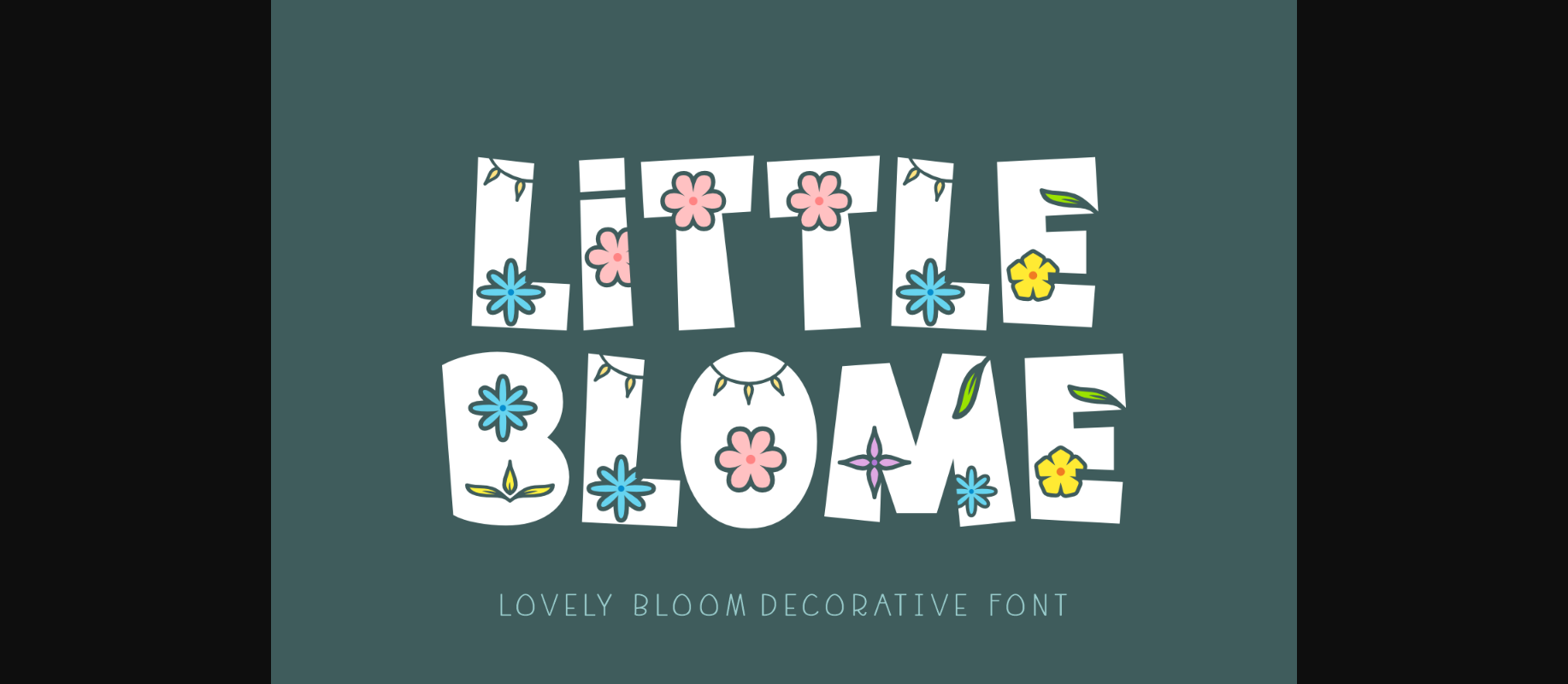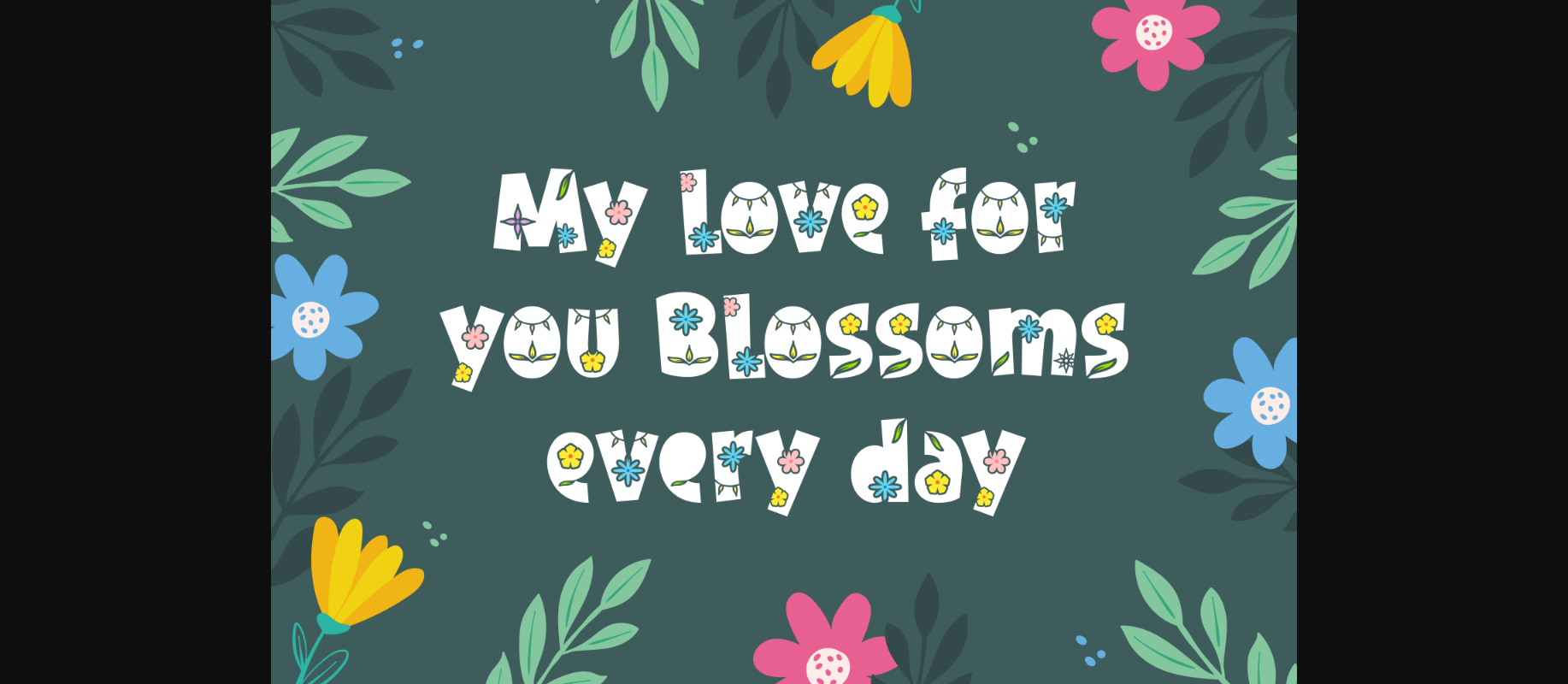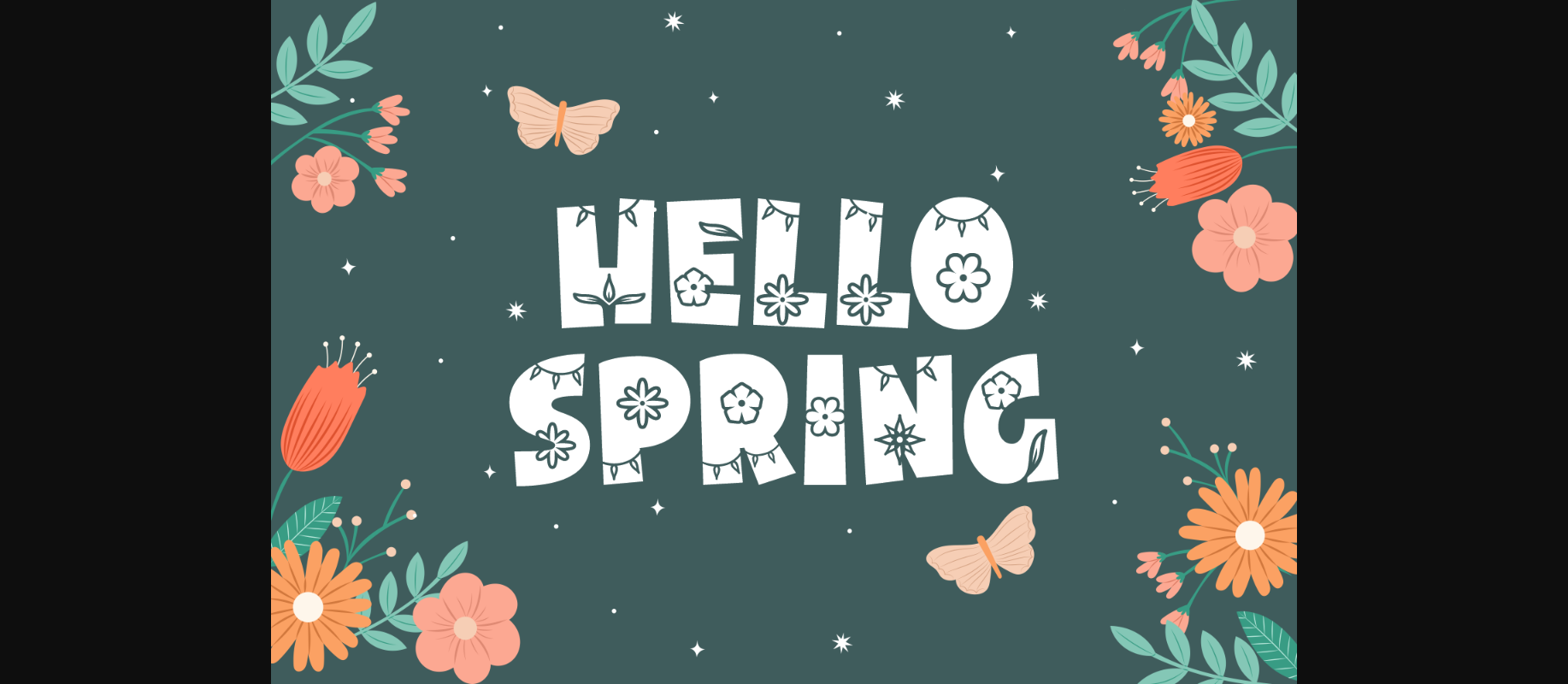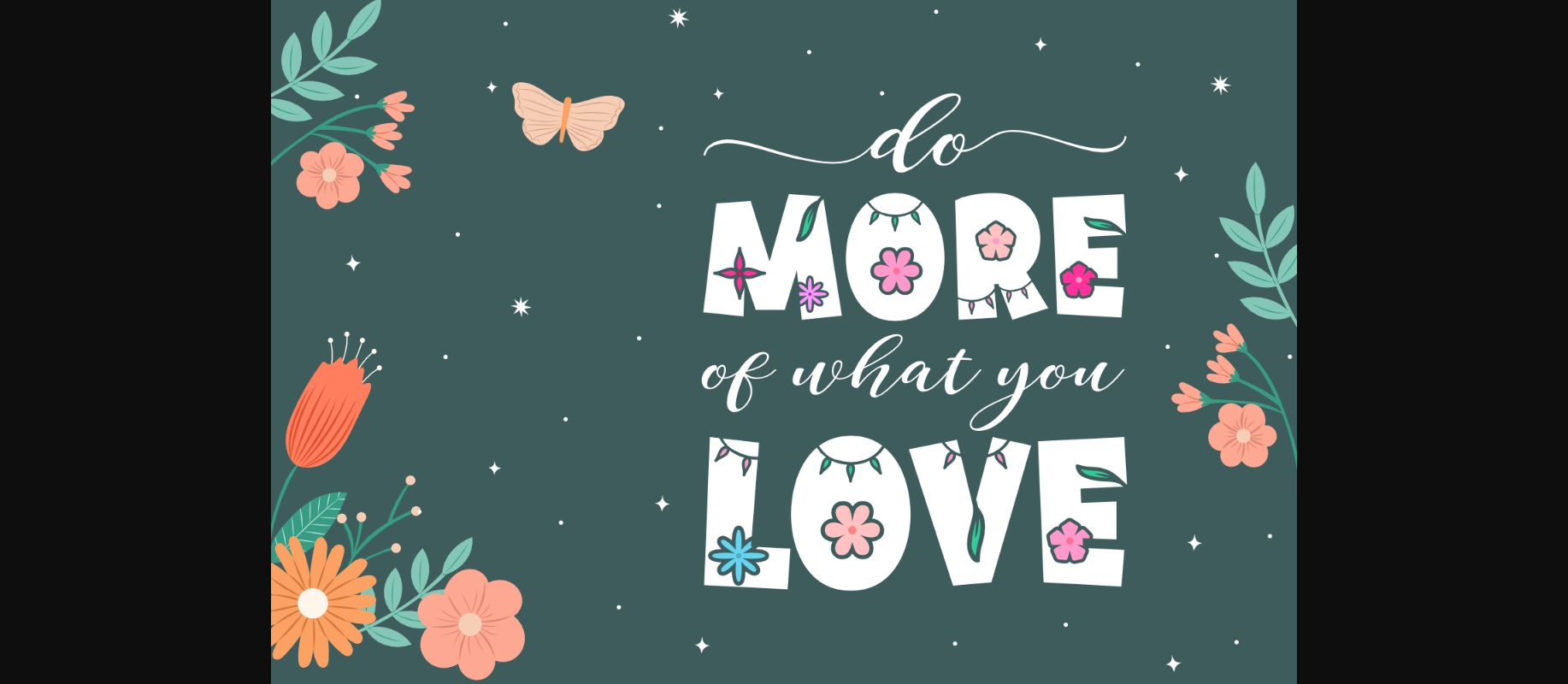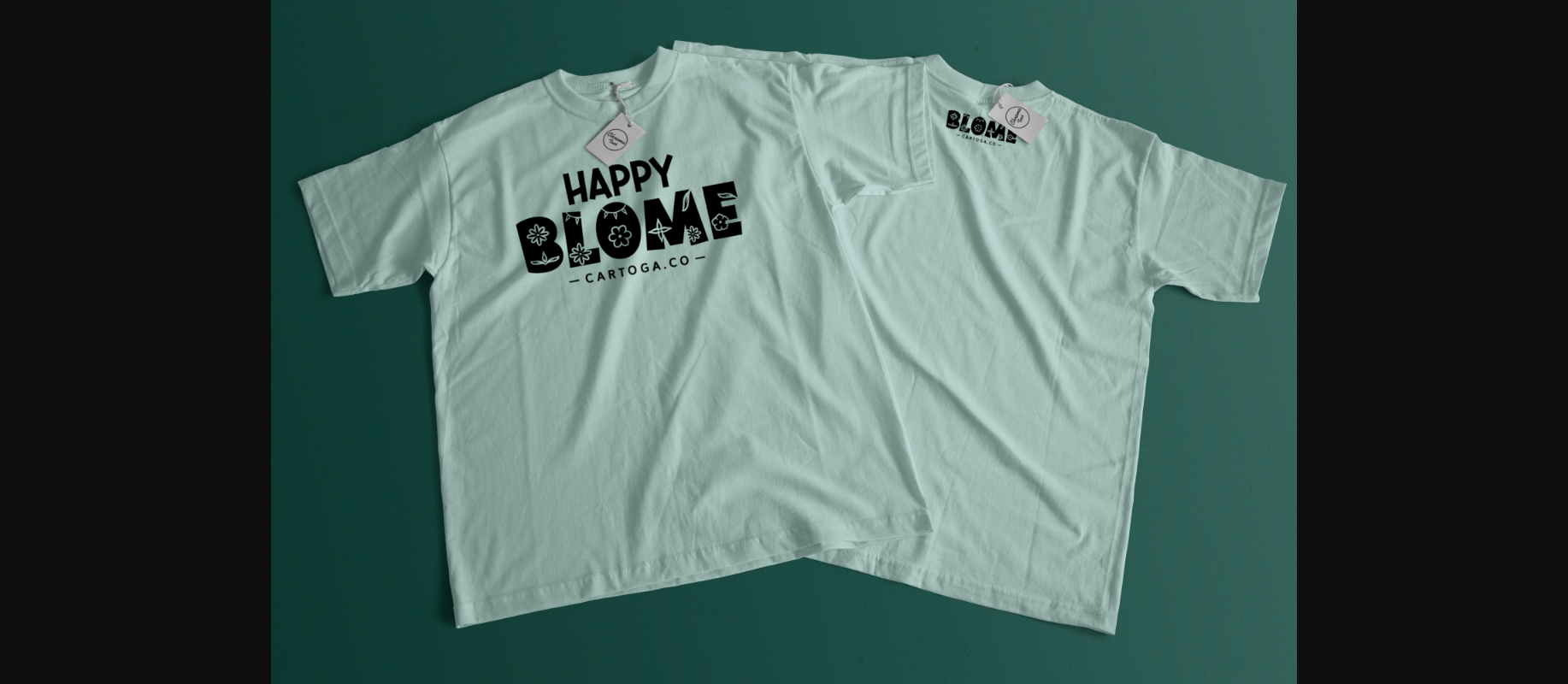
Little Blome Font
About Little Blome Font
Little Blome is a charming, capricious font with floral elements that exudes a timeless appeal. With its delightful aesthetic, Little Blome adds a touch of whimsy to a variety of mediums. Be it heartwarming greeting cards, inspirational quotes, stylish apparel, or any other creative project sparked by your imagination, Little Blome enhances your work with its luxuriant design, giving a sophisticated touch to your artistic ventures. Experience the enchanting whimsy of Little Blome, and bring a fresh sense of charm to your creative crafts.